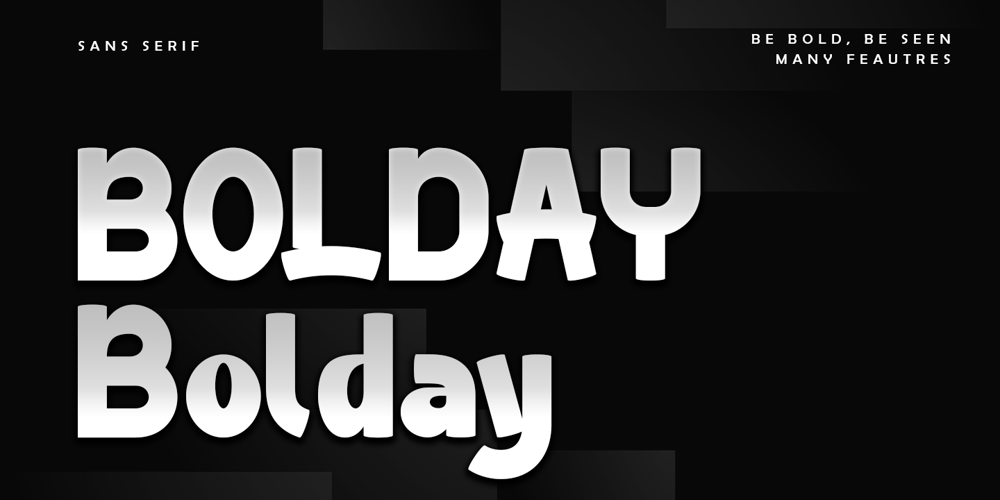
Bolday
Bolday font
Bolday Font Family was designed by Thomas Aradea and published by Letterara. Bolday contains 2 styles and family package options. Unleash the power of design with Bolday, a bold sans-serif font that exudes confidence and modernity in every letter. Crafted for impact, Bolday blends bold precision with a dynamic edge, making it the perfect choice for standout branding, captivating headlines, and eye-catching packaging. Whether you’re working on digital or print projects, this font’s strong, clean lines deliver clarity and style with effortless sophistication. Bolday comes with PUA encoding, unlocking access to a range of unique glyphs and swashes, so you can add your own creative flair to every project. Let Bolday be the force that drives your design forward, making a statement that’s impossible to ignore.